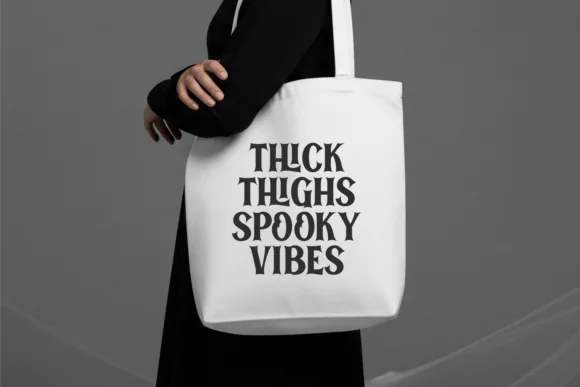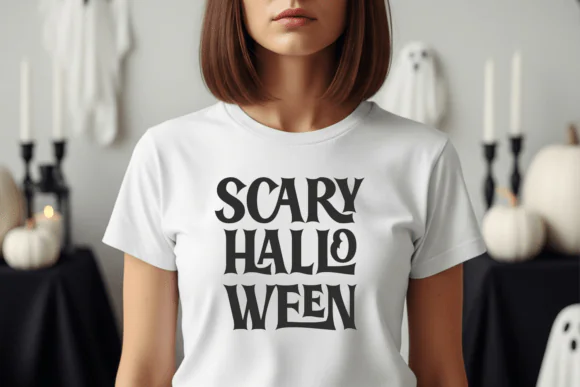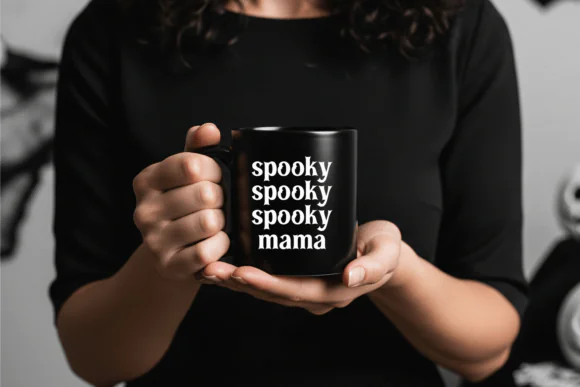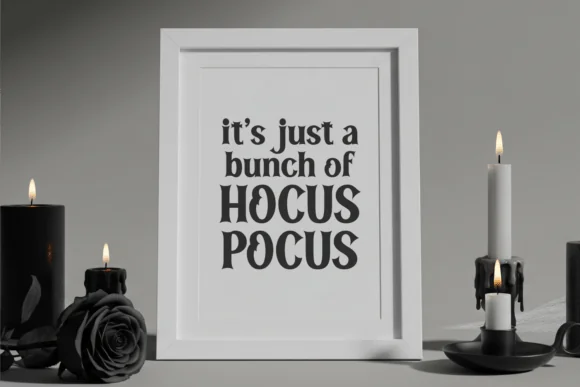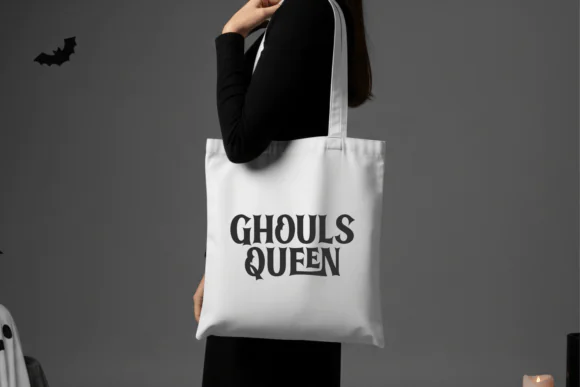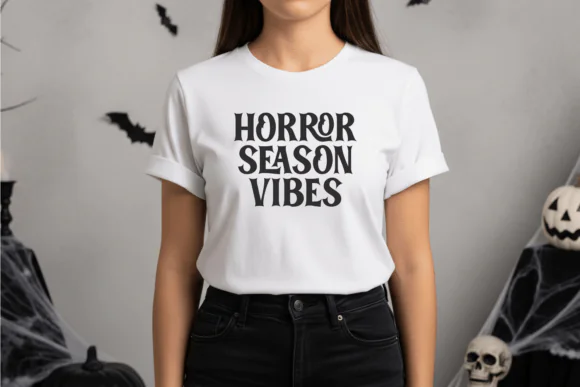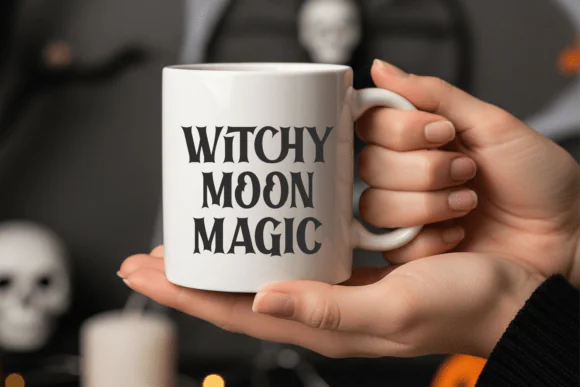
Create mysterious, stylish, and spooky seasonal designs with Halloween Witchlight Font, a distinctive Halloween-inspired typeface filled with haunting elegance and otherworldly charm. This font captures the mystery of October with a sophisticated mix of spooky atmosphere, magical energy, and festive Halloween character.
Halloween Witchlight Font is perfect for creative projects that need a chilling but elegant look. Its unique uppercase ligature function adds extra personality and decorative flair, making your Halloween typography feel more magical, memorable, and visually appealing.
This font works beautifully for Halloween t-shirts, mugs, pillows, posters, quote boards, doormats, invitation cards, wall decor, keychains, stickers, sublimation designs, social media graphics, party decorations, and seasonal branding. Whether you are designing spooky merchandise, festive home decor, or Halloween party materials, this font adds a ghostly and enchanting touch to your work.
Halloween Witchlight Font is a strong choice for designers, crafters, small business owners, and digital product sellers who want to create enchanting Halloween designs with a stylish spooky atmosphere.